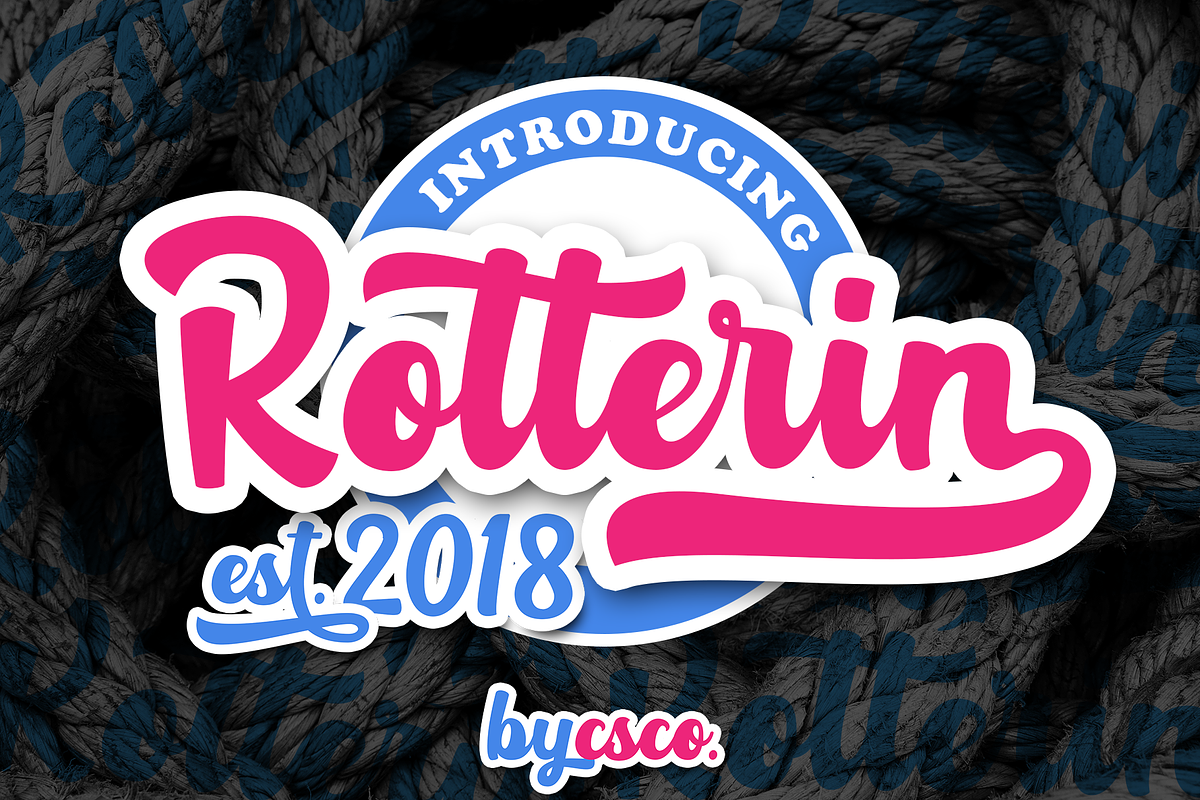
Rotterin Script - Layered Font Free Download is a dynamic and creative layered script typeface designed to give your projects a unique, handcrafted feel. Featuring multiple layers that allow you to combine and customize the font to create different textures and effects, Rotterin Script is perfect for logos, packaging, posters, branding, and any design that needs a personalized touch with depth and style.
The font includes both solid and outline versions, allowing you to easily experiment with color combinations and effects to add more dimension to your typography.